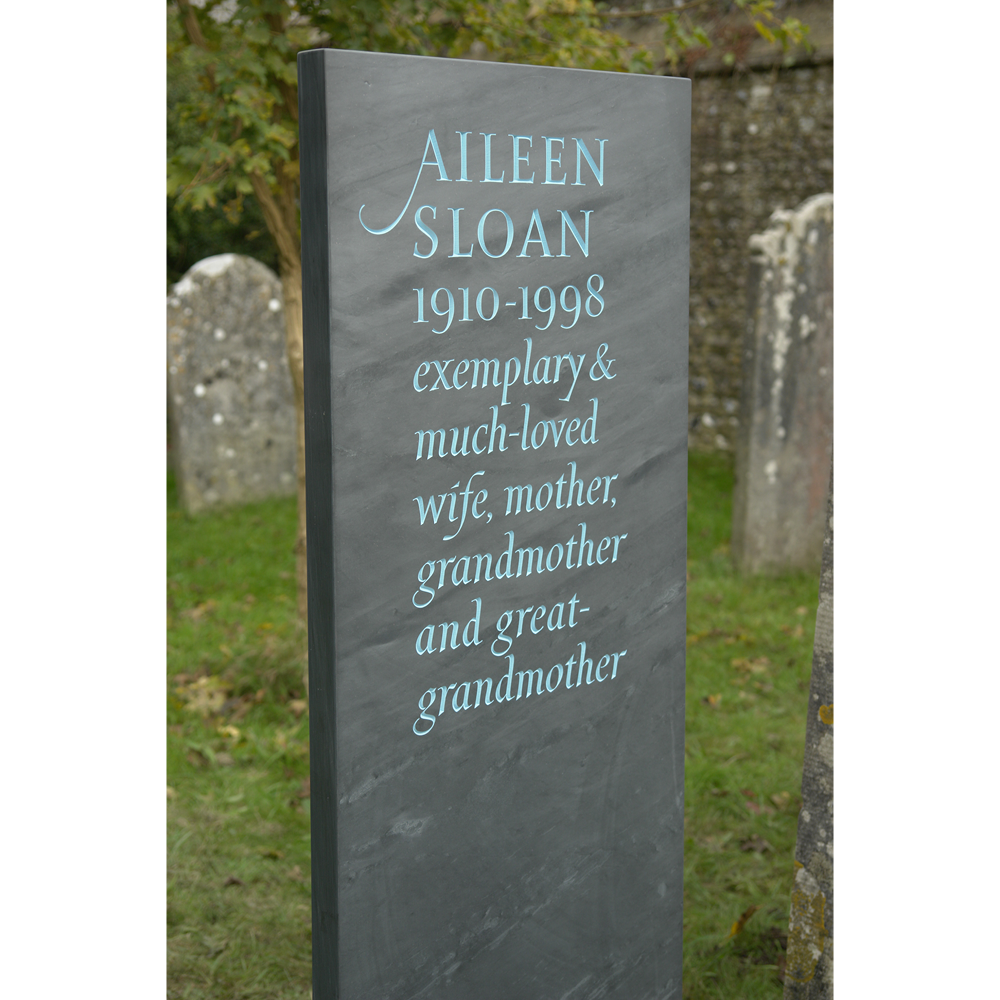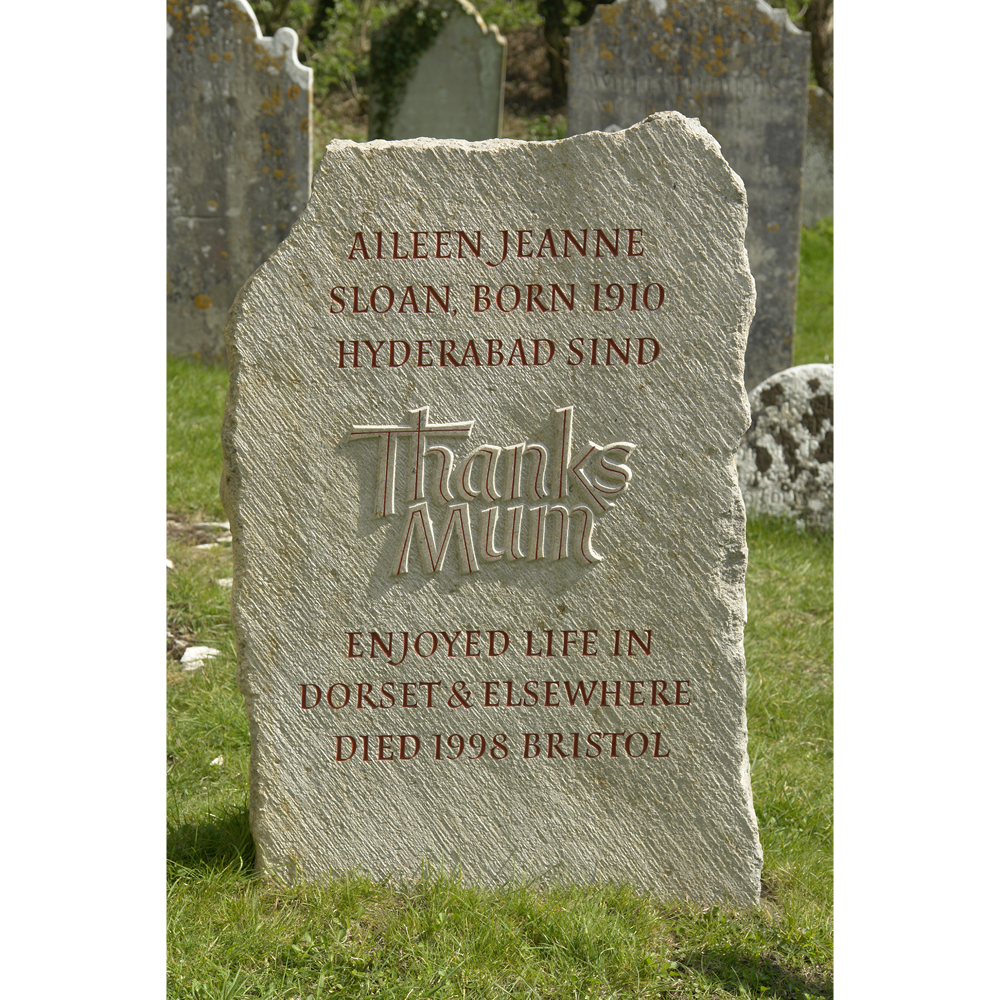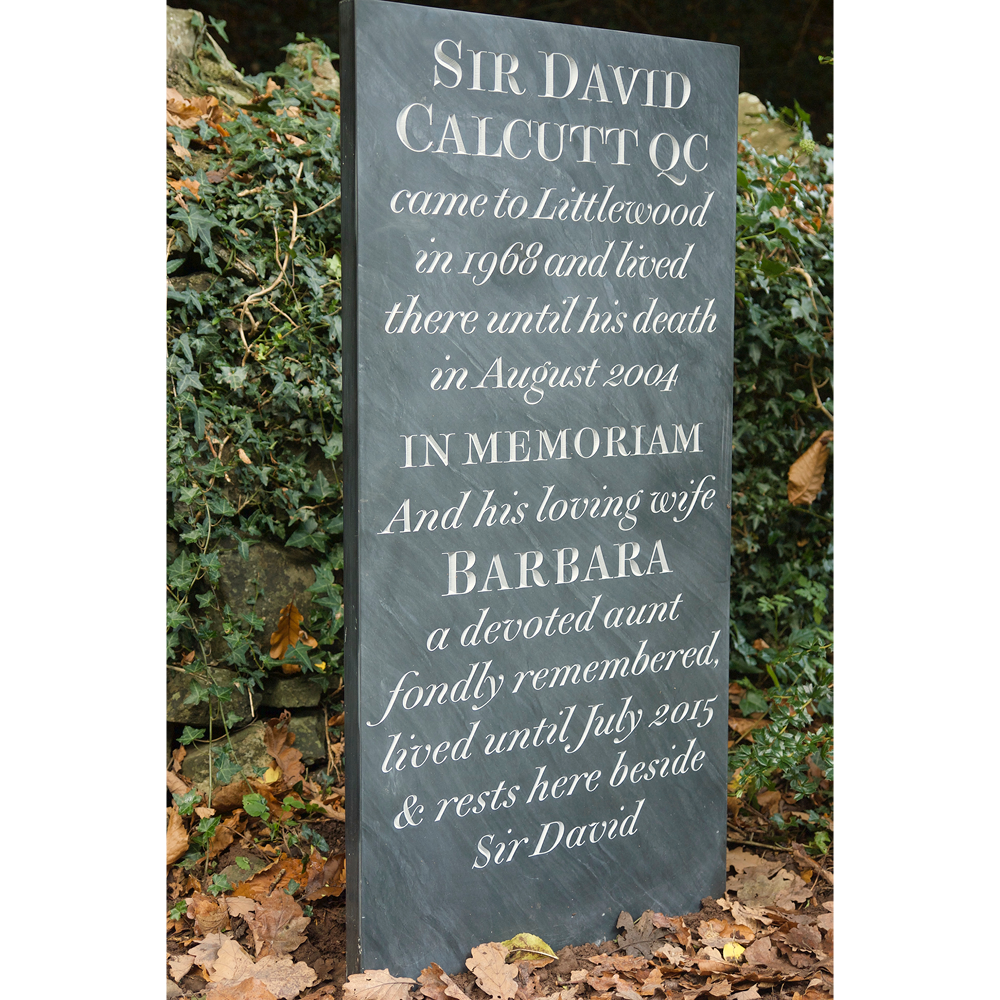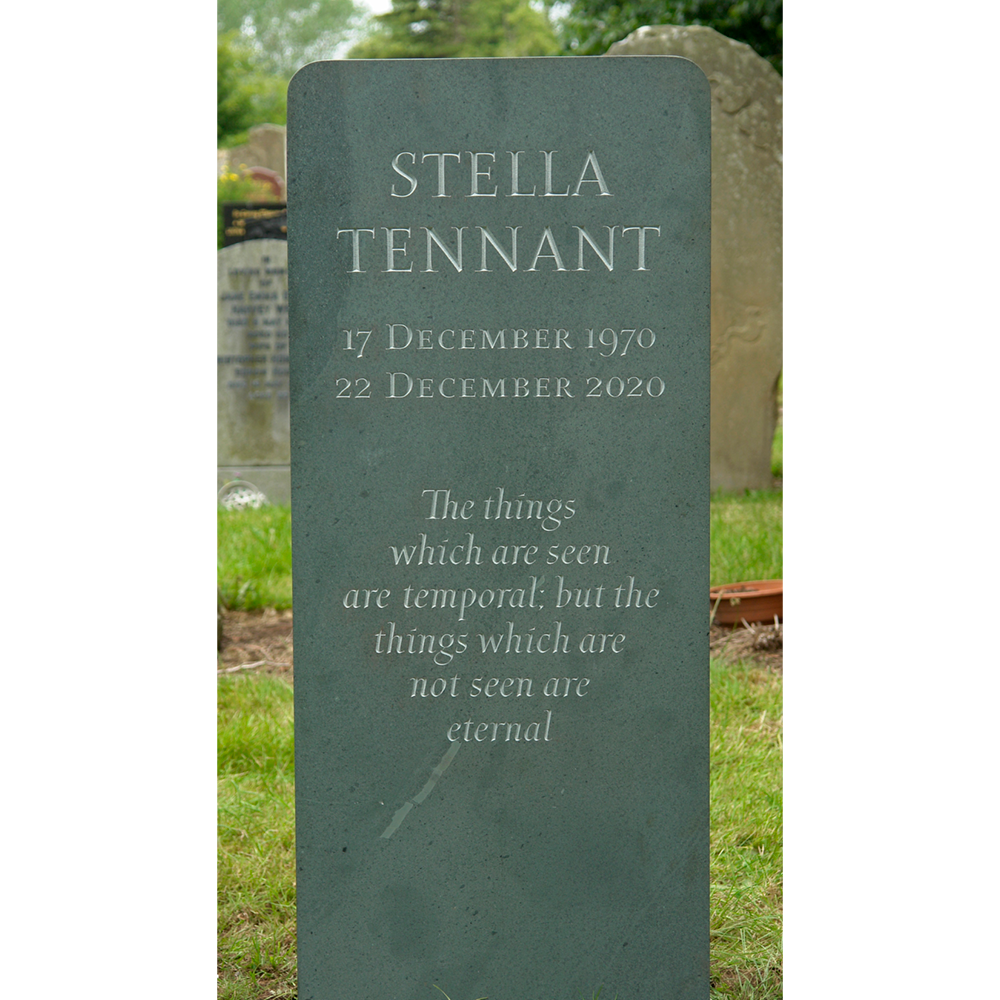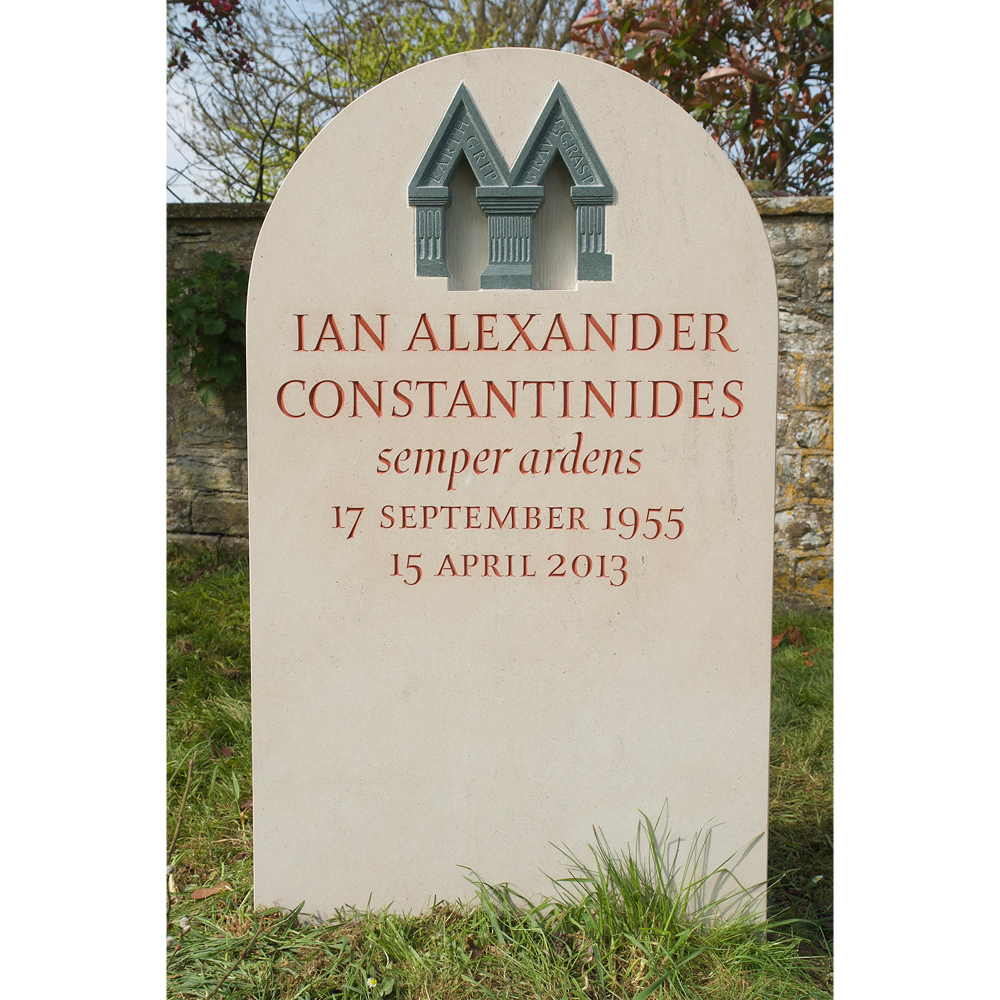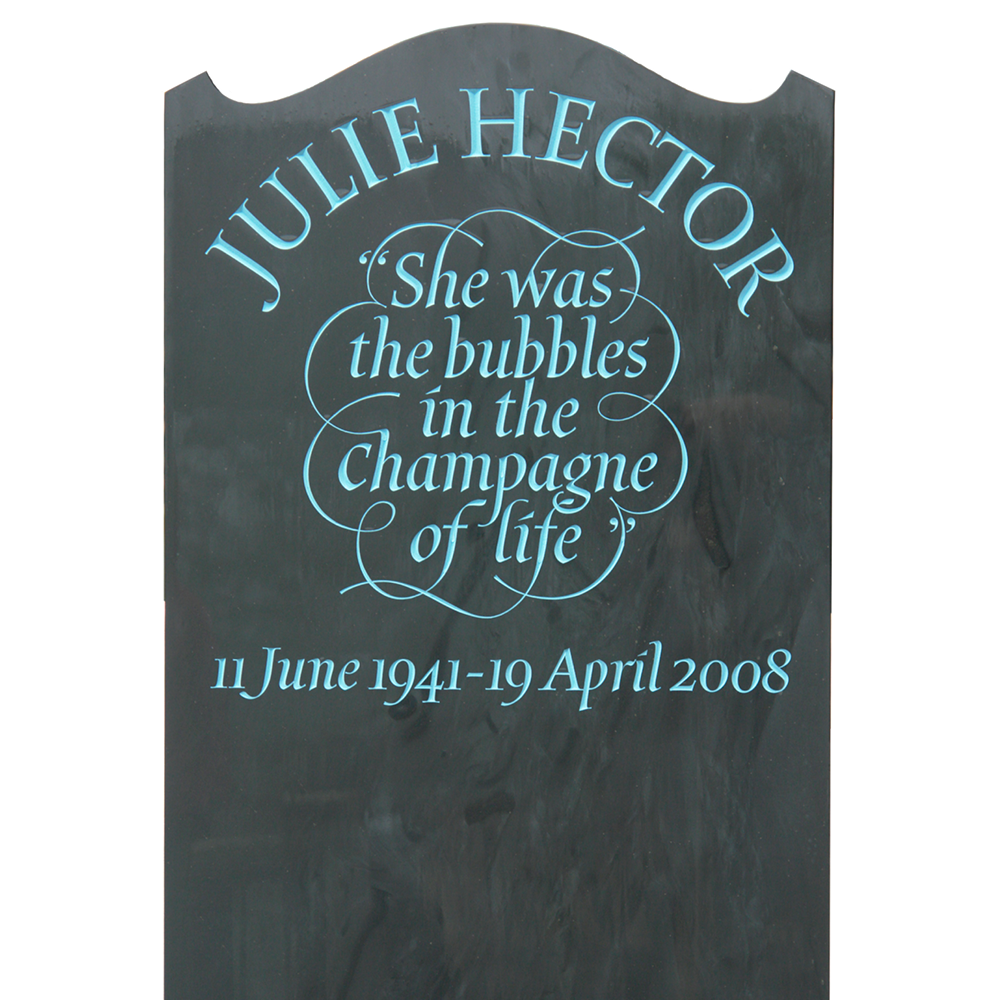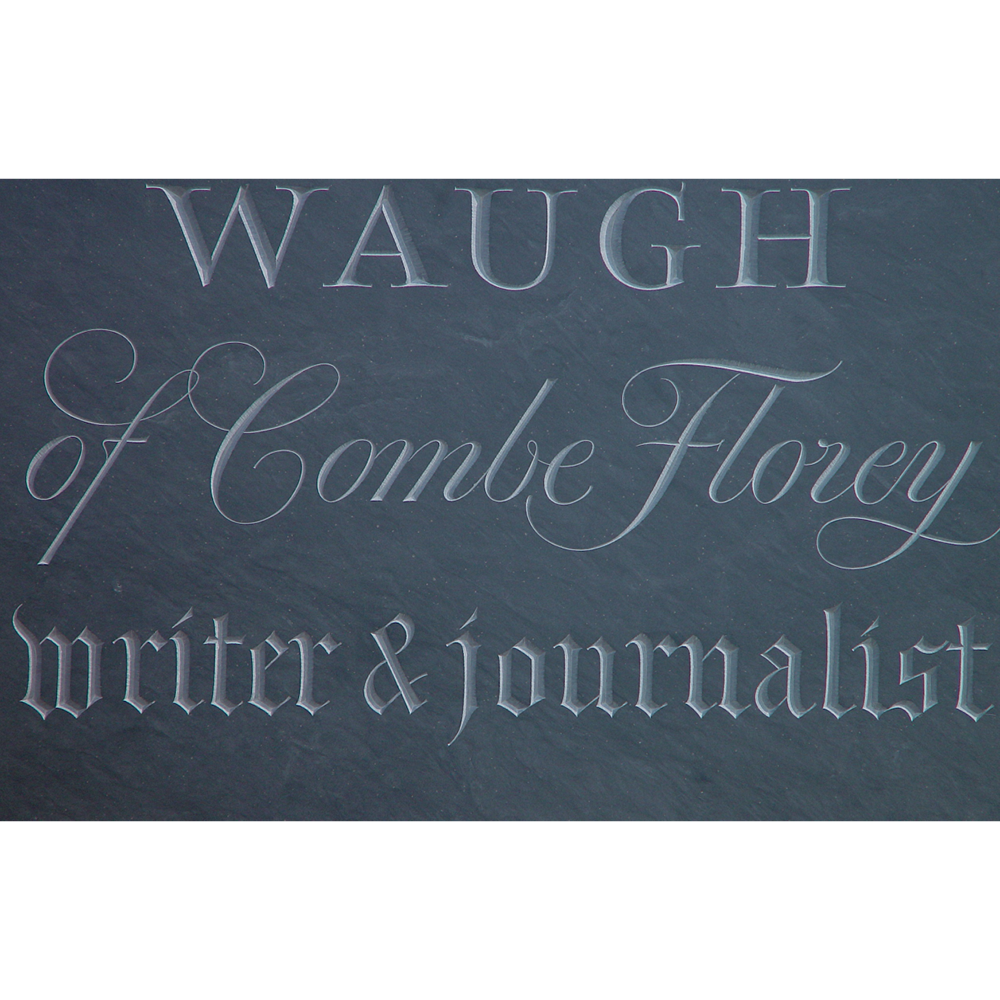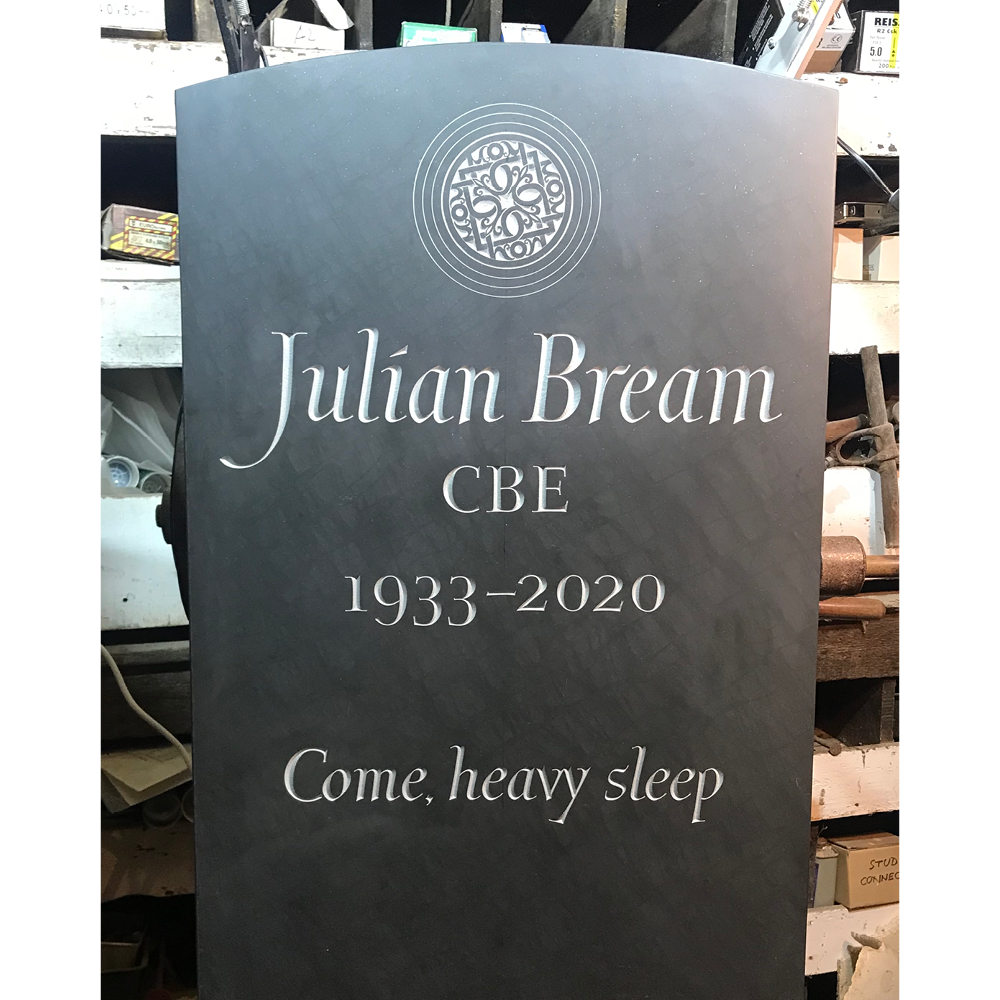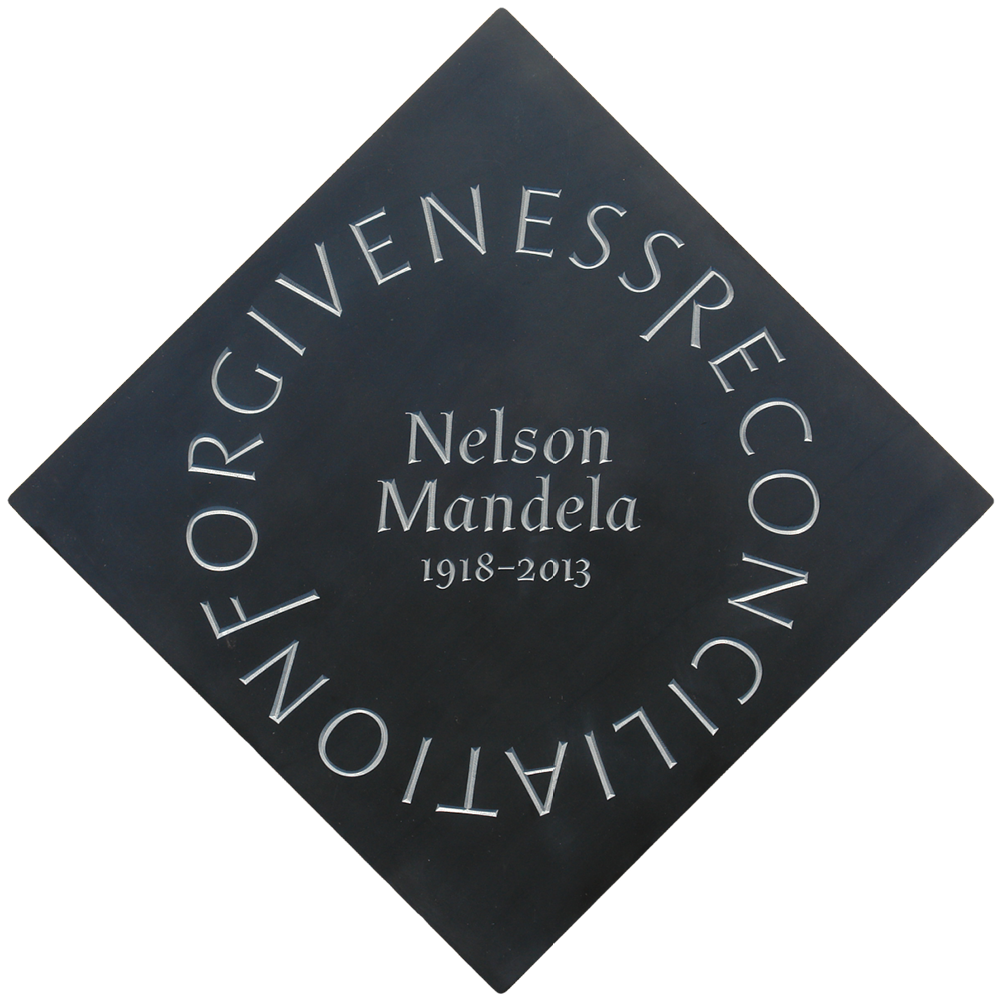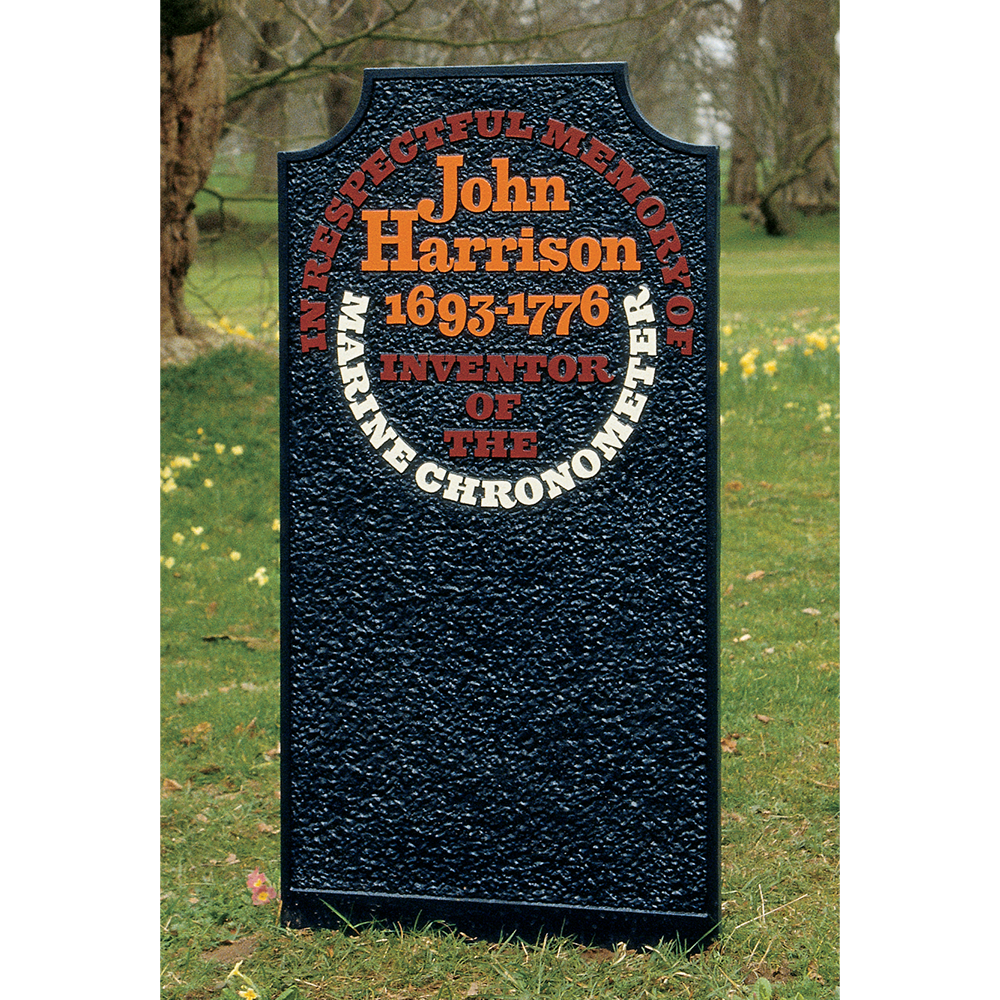
I have been fascinated by letter design since my schooldays in the sixties. I started cutting letters in stone in the seventies, and have worked freelance ever since, always keeping a balance of memorial work with other commissions, often collaborative artworks, mostly with the poet Ian Hamilton Finlay.
I enjoy working within the letter-cutting tradition, but I have a non-purist approach to style and technique: while nearly all my letters are cut by hand, and letter-design is at the heart of it, I enjoy the challenge of designing for mechanical techniques and unusual materials.
Colour is important to me, not just for its own sake, but because it can be helpful in articulating an inscription, or simply making it more legible. Printing and typography have always been a parallel interest, and it is easy to detect a typographic flavour in much of my lettering.